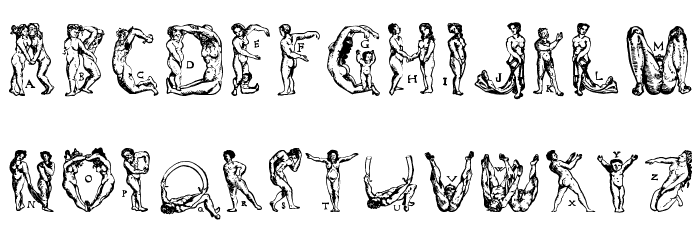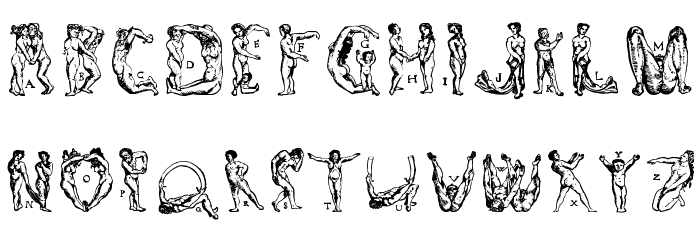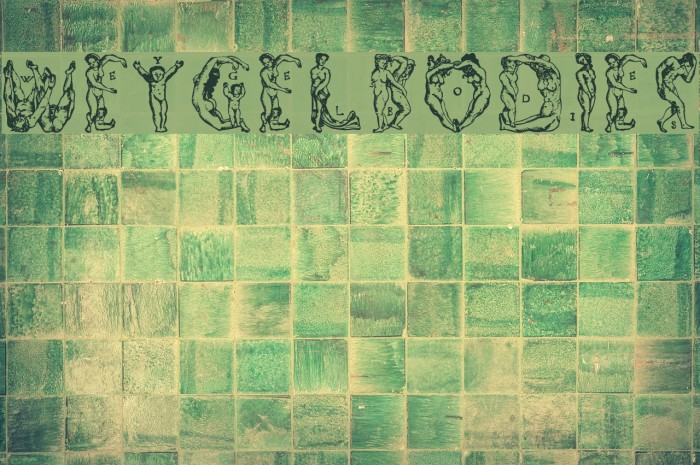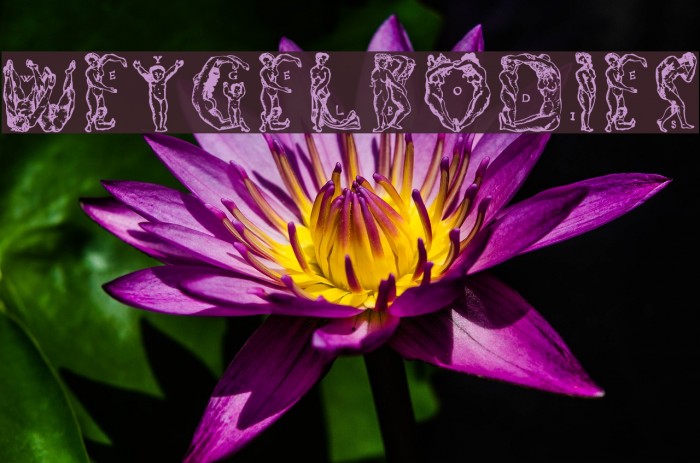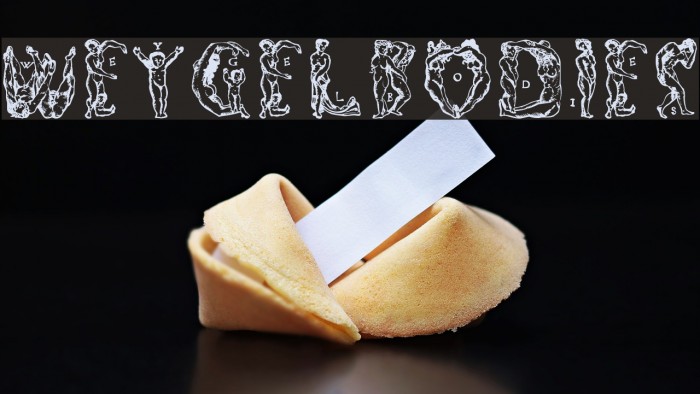
WeygelBodies Font
This unique and artistic font is composed of human figures creatively arranged to form each letter and number. The characters are depicted in various poses, showcasing a blend of flexibility and strength. Each letter is distinct, with intricate detailing that highlights the human form. The font is highly decorative, making it ideal for projects that require a bold and artistic statement. Its playful and imaginative design captures attention and adds a dynamic element to any visual composition.
An artistic font featuring human figures forming each character.
- Proposed Projects: Ideal for creative posters, artistic book covers, unique branding, and eye-catching advertisements.
- Use Case: Logos, Headlines, Artistic Displays